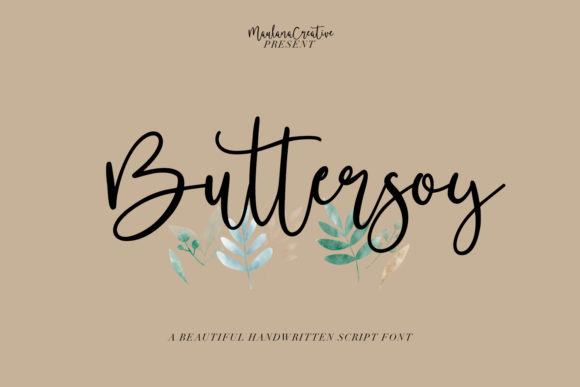
Buttersoy Font: A Review for Marketers and Campaign Designers
It’s late afternoon, and I’m staring at a draft thumbnail for a new YouTube series launch. The composition is solid—the hero image is perfect, the color palette feels premium—but the headline just sits there. It’s clean and legible, sure, but it’s missing the personal, inviting spark I need to hook a curious viewer scrolling past. This is the exact moment I swap the generic sans serif for Buttersoy. Suddenly, the “Mastering Modern Calligraphy” text isn’t just information; it feels like a beautiful, handwritten invitation from the creator themselves. That’s the first, and most impactful, test of a Script Handwritten font like this in a real workflow: does it instantly change the mood and message?
Buttersoy for Luxury Social Media Graphics and Instagram Content
Buttersoy is a beautiful light handwritten font designed to add a luxury spark to any project. In practice, its “unique feel” translates to an elegant, airy cursive that carries sophistication without being overly formal or stiff. For marketers, this is gold for crafting Instagram posts that need to feel exclusive or personal. Think about a product teaser for a high-end skincare line. Using Buttersoy for the phrase “Coming Soon” or “New Moonlit Serum” over a soft-focus image immediately frames the launch as curated and special, not just another notification. This font excels as a headline or callout—it’s not for your caption copy. I use it for Reels cover text, quote graphics for brand values, or to highlight a key benefit in a carousel post. The “stunning impact” comes from its ability to break the monotony of grid-based feeds with a touch of human craftsmanship.
Readability of Buttersoy in Mobile Previews and Digital Ads
Any designer knows a beautiful typeface can fall apart on a small screen. Here’s the practical review: Buttersoy holds up remarkably well in mobile previews and digital ad layouts, provided you use it strategically. Its light weight and clear letterforms maintain legibility at sizes suitable for YouTube thumbnail titles or Pinterest pin headlines. For fast-scrolling feeds, you want that initial impression to be clear. I avoid using it for anything longer than a short phrase or a two-word campaign label. On dark backgrounds, its light strokes pop elegantly; on light backgrounds, they offer a delicate contrast. The key is to ensure ample spacing and a simple, uncluttered background image so the handwritten style isn’t fighting for attention. It won’t replace your primary information font, but as a secondary display font for emotion, it’s incredibly effective.
Buttersoy in Brand Campaigns and Email Promotion Headers
Consistency is the backbone of a campaign, and a distinctive Script Handwritten font can become a quick visual signature. For a seasonal sale campaign across email, web banners, and social, I might deploy Buttersoy exclusively for the campaign tagline, like “Summer Edit” or “Gift Yourself.” This creates a cohesive, premium thread across all touchpoints without redesigning every element. In an email promotion header for an online course launch, using Buttersoy for the course name alongside a clean sans serif for the details builds a hierarchy that feels both professional and personally crafted. It subtly tells the audience the content is valuable and thoughtfully made. This is where that “luxury spark” truly pays off—it elevates the perceived value of the offer.
Where Buttersoy Might Not Fit Your Campaign Typography
An honest review means noting limitations. The Buttersoy font is a display asset, not a foundational text font. It is not suitable for long copy paragraphs, dense legal disclaimers in ads, tiny footer text, or formal corporate reports where clarity and neutrality are paramount. Its personality is too pronounced for those roles. Also, if your brand voice is rugged, ultra-modern, or aggressively bold, this light, elegant cursive might send a conflicting message. Always match the font’s mood to your campaign’s core emotion.
Practical Font Pairing and Licensing for Buttersoy
To integrate Buttersoy into a robust typography system, pairing it with a neutral, highly readable font is essential. My go-to is a simple, versatile sans serif (like a geometric or neutral sans) for all body text, explanations, and calls to action. This combination lets the handwritten font shine as the decorative title while ensuring all information is perfectly clear. Before committing any font to client campaigns or commercial merchandise, checking the licensing details is a must. Ensure it includes the commercial use you need—for digital ads, branded templates, or physical product packaging. Also, verify the file formats (often OTF/TTF) and check for any included stylistic alternates or ligatures that can add even more unique flair to your headlines.
In the end, Buttersoy isn’t just another font in the library. It’s a specific tool for a specific job: injecting a feeling of elegant, human-made luxury into your digital visuals. From that YouTube thumbnail crisis to a cohesive Instagram content series, its ability to transform a standard graphic into a compelling, premium-looking piece is its real value. For marketers and designers looking to elevate campaign aesthetics quickly, this typeface offers a straightforward path to that upgrade.